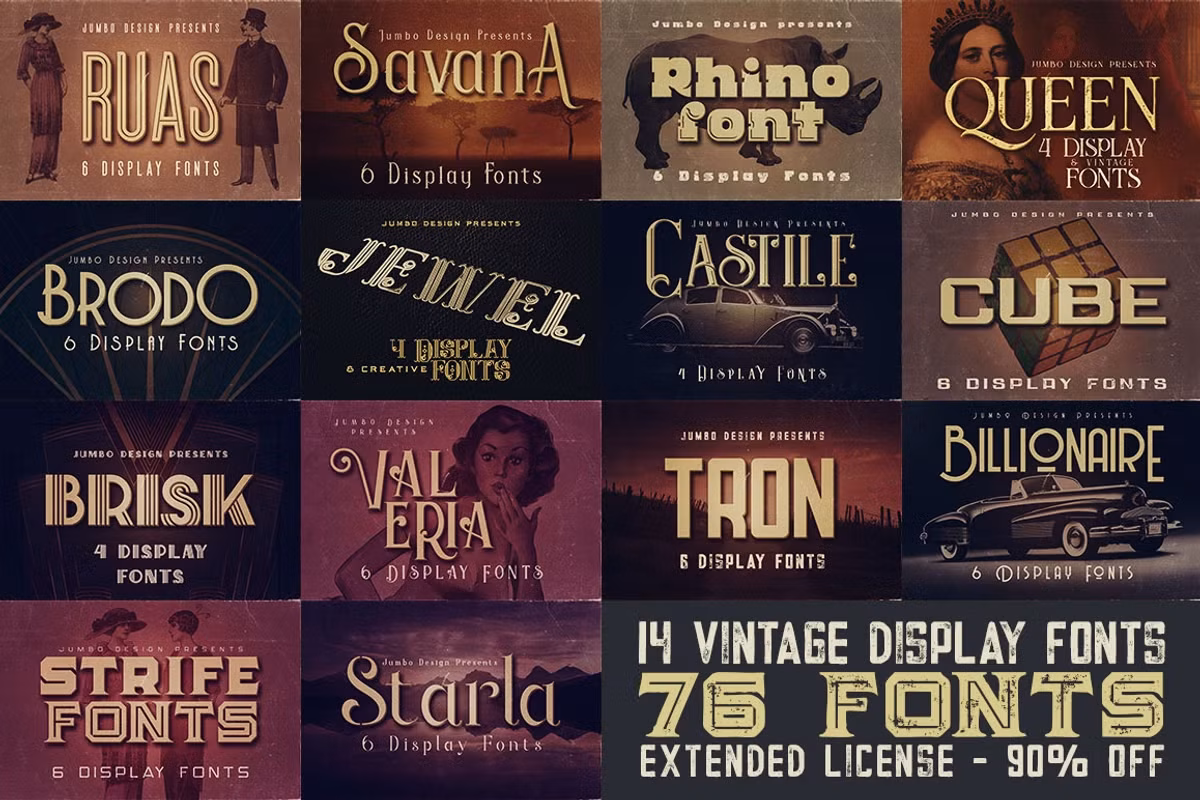
14 Display Fonts - 76 Fonts Free Download
14 Display Fonts - 76 Fonts Free Download is a massive collection of high-quality display typefaces, offering a wide variety of styles and creative options. Whether you're working on branding, packaging, posters, or web design, this collection provides you with 76 unique fonts to choose from, including bold, elegant, modern, and vintage styles.
Each font in this bundle is designed for maximum impact, perfect for catching attention in headlines and logos. With a variety of weights and letterforms, this set ensures flexibility for a variety of design needs. The collection is compatible with both Mac and Windows systems and supports multilingual characters.